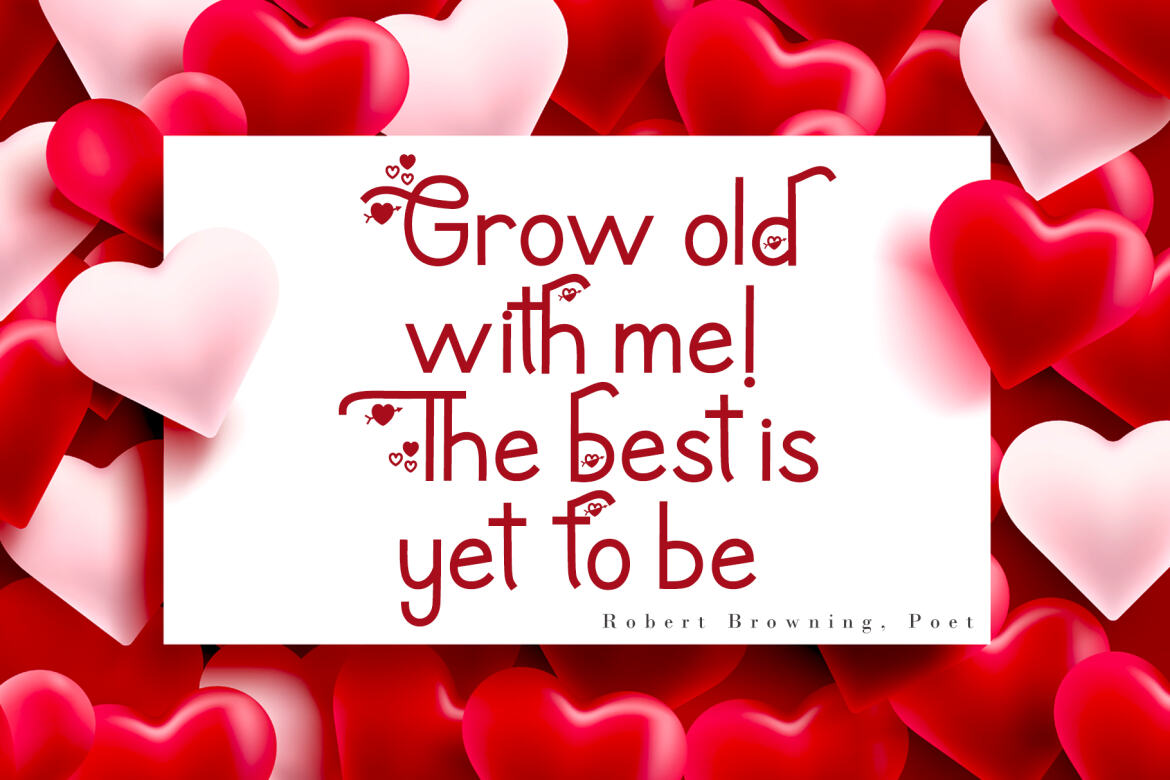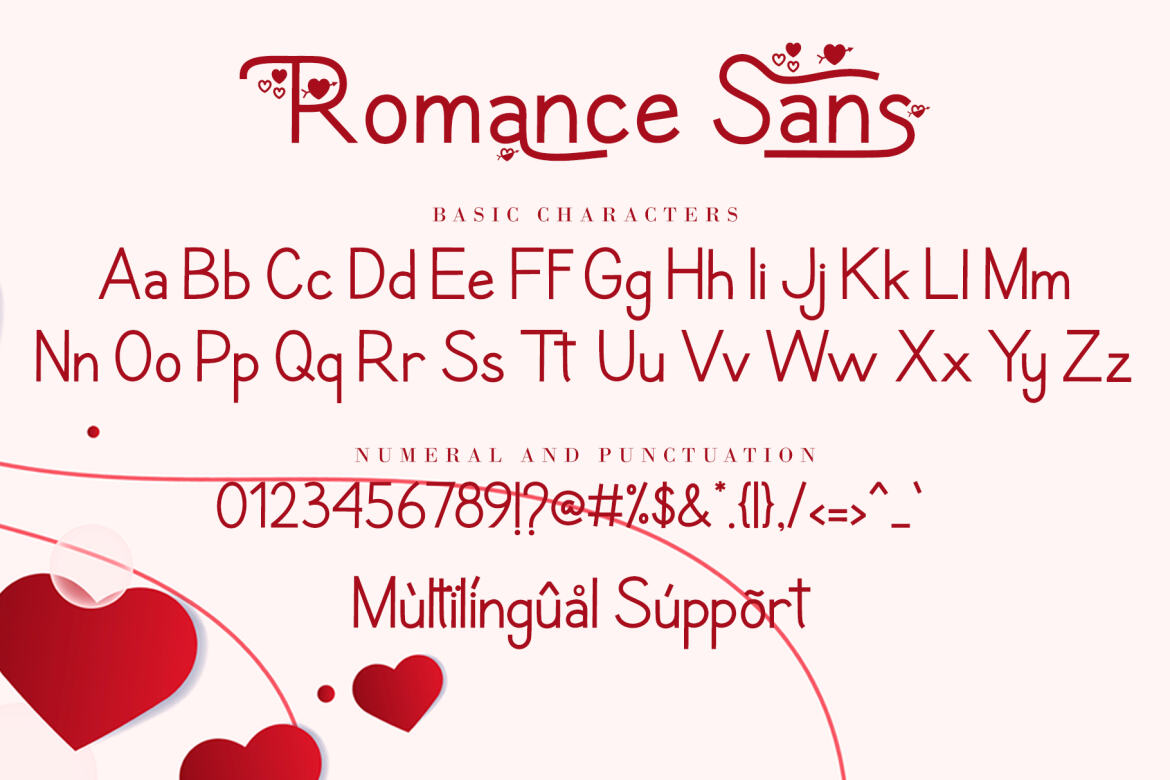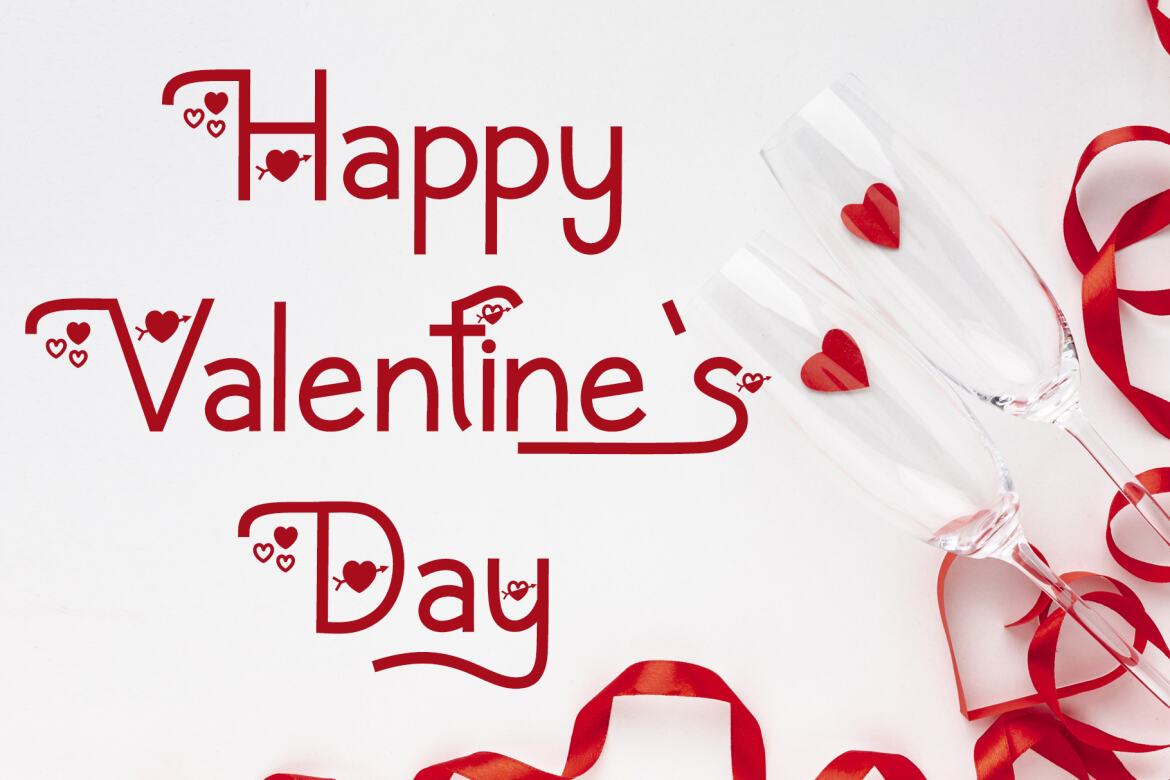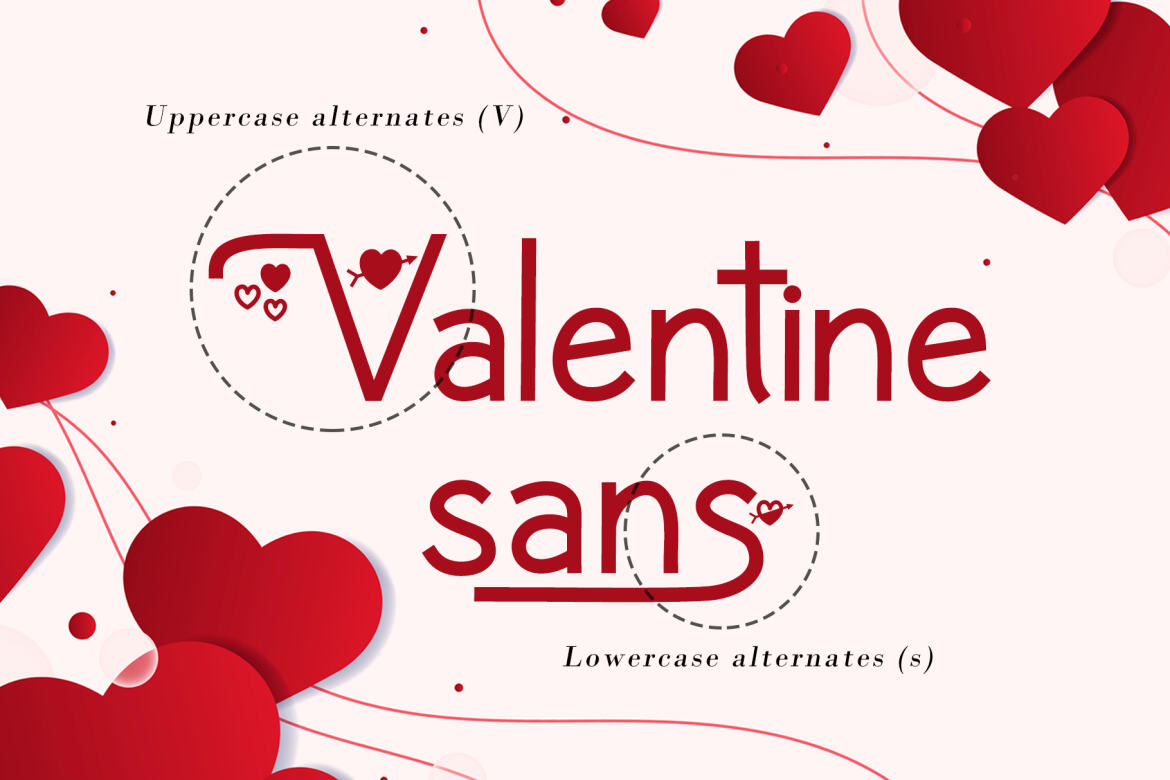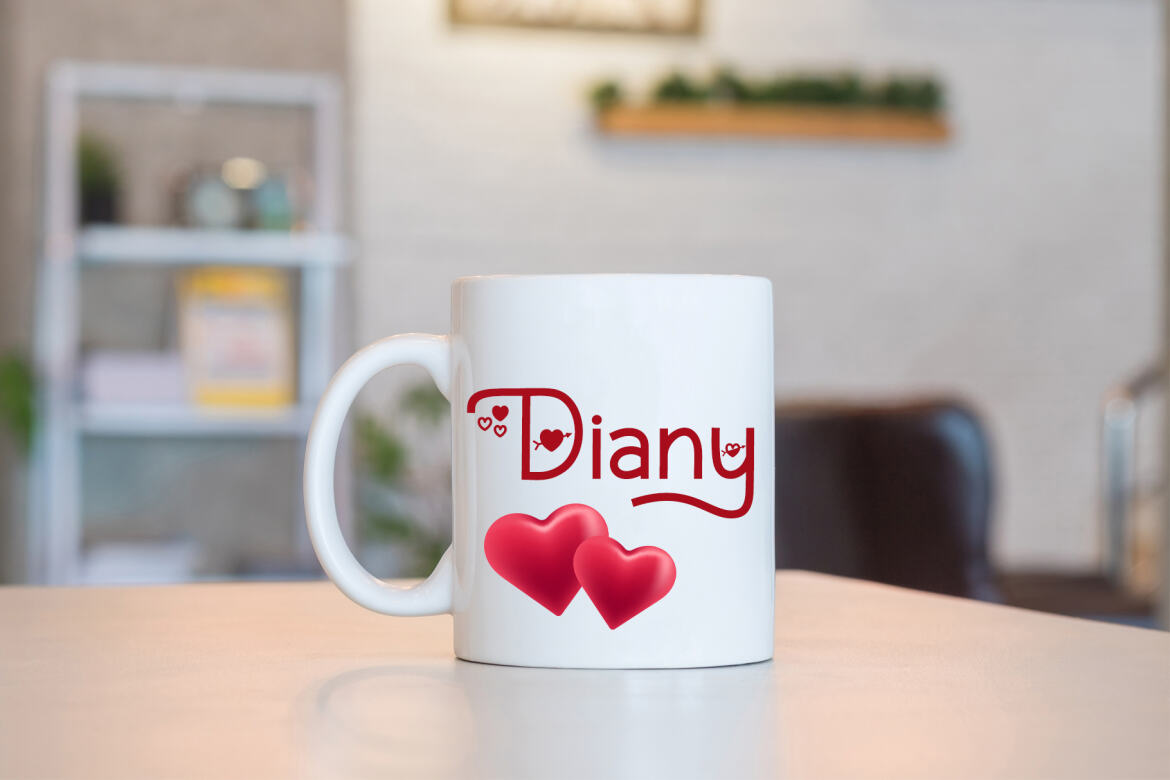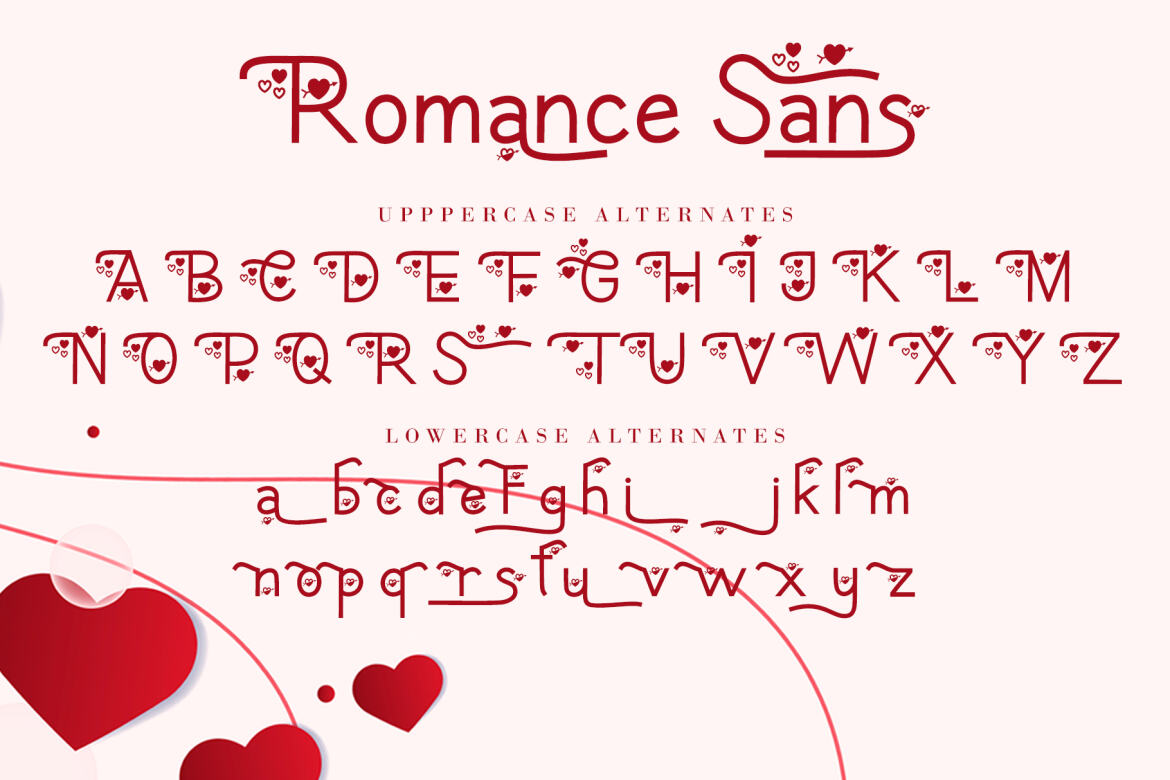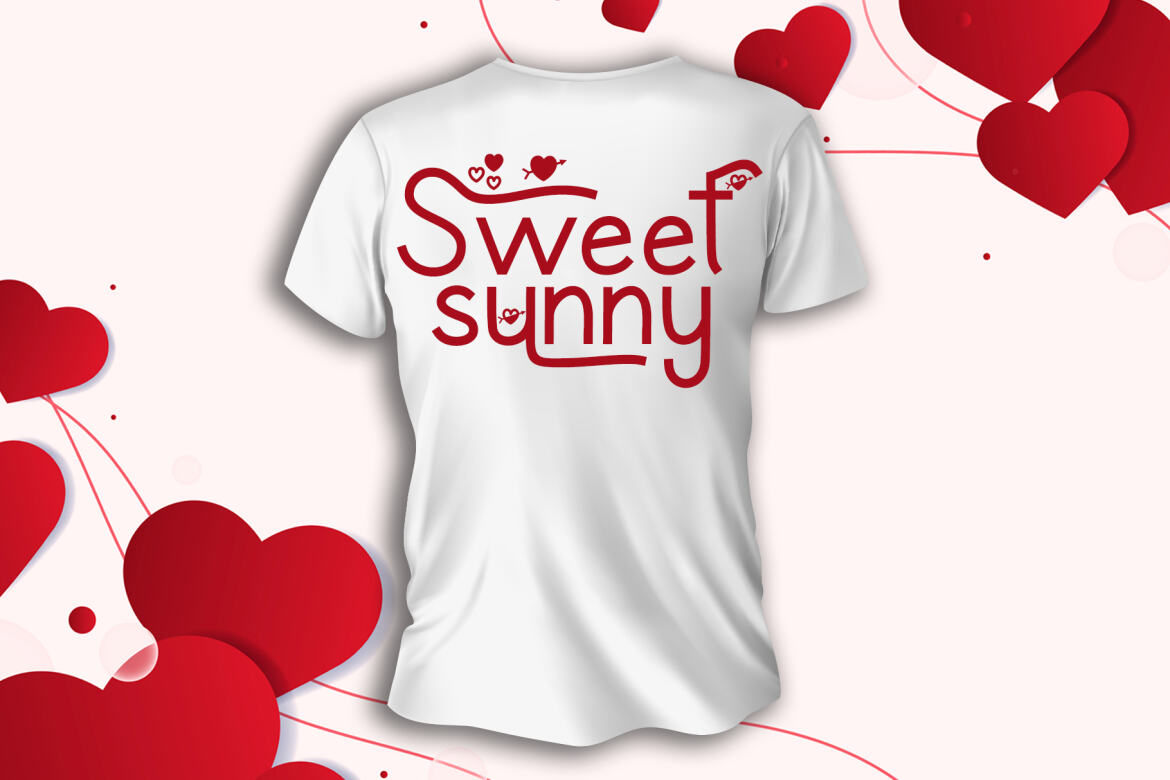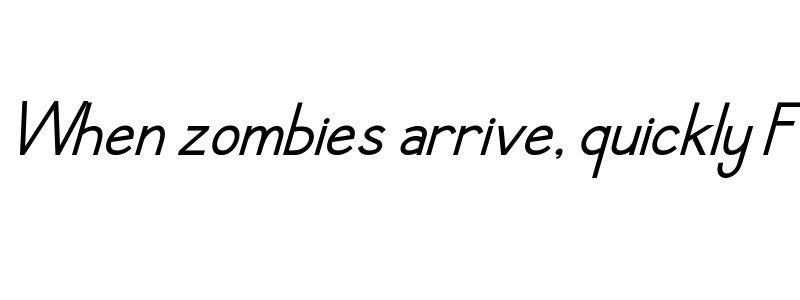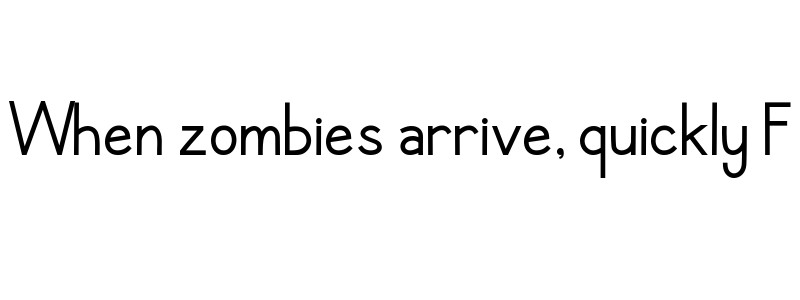
Romance Sans FREE Font
Romance Sans is a modern display font featuring lovely ornaments. This font is perfect for romantic themed designs, especially when combined with red or bright colors. It is PUA encoded which means you can access all of the glyphs and swashes with ease!
• support multilingual; ä ö ü ä ö ü ß ¿ ¡
• swashes, titiling & ligatures